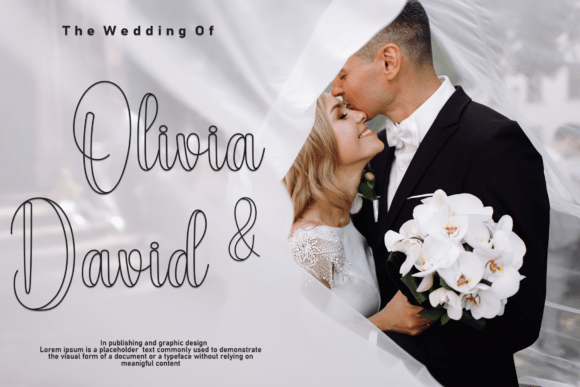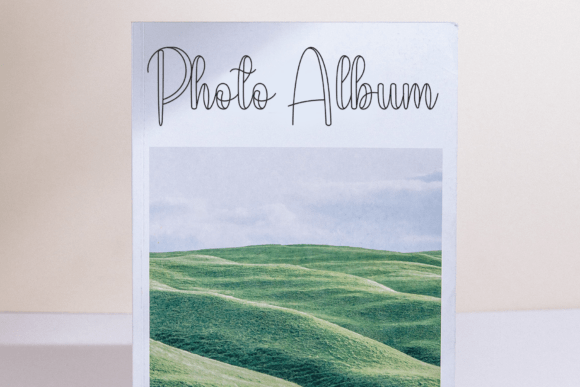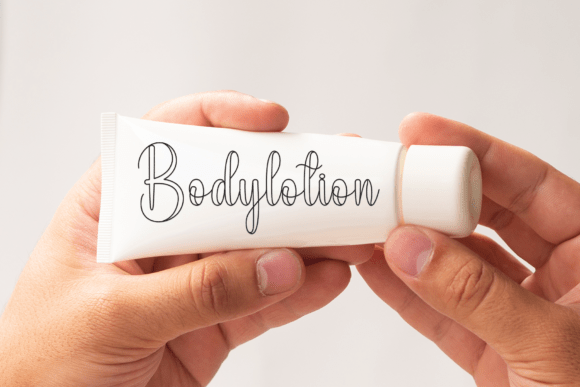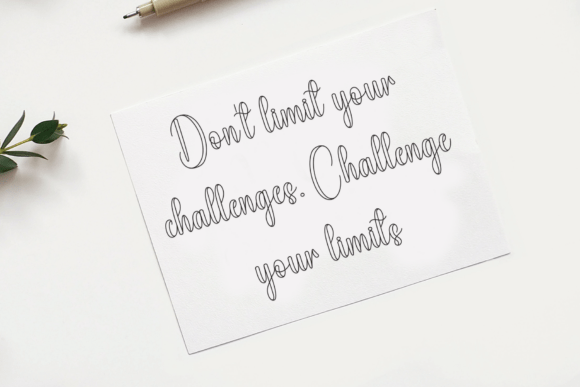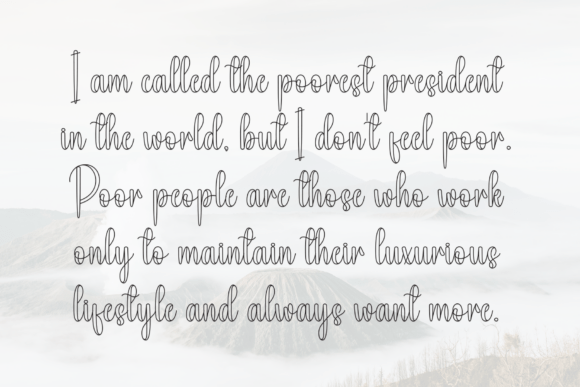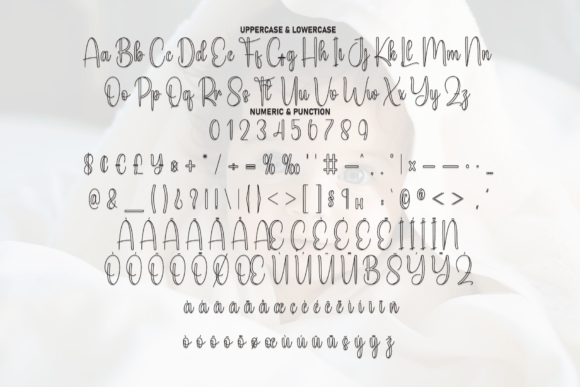
The Perfect Script: Unlocking the Charm of the Babycute Font
Have you ever found yourself staring at a blank page, searching for the perfect font to bring your design to life? That’s exactly what happened to me, and it was then that I discovered the Babycute Font – a stylish script font that has become my go-to choice for adding a touch of elegance to any project.
This beautiful font features fluid strokes, graceful curves, and carefully balanced letterforms, capturing the beauty of hand-drawn calligraphy with a contemporary edge. With its natural flow and refined details, the Babycute Font delivers both visual appeal and versatility, making it an ideal choice for logos, invitations, packaging, and social media graphics.
As a designer, I can attest to the value of having a versatile font like the Babycute Font in your toolkit. Its sophistication and personality make it a valuable asset for any project, and its ease of use means you can focus on bringing your creative vision to life.
Babycute Font Key Features
- Font Family: Babycute Font is a unique, hand-drawn font designed for creating adorable and playful text.
- Unique Characteristics: The font features intricate details, rounded edges, and whimsical flourishes, giving it a distinctive, childlike charm.
Babycute Font Review
I recently had the chance to play around with the Babycute Font, and I must say it’s a sweet addition to any designer’s toolkit. Here’s what I liked about it: ✨
- Charming character set: The font’s playful, cursive script makes it perfect for adding a touch of whimsy to any design.
- Variety of weights: The font comes in multiple weights, allowing designers to achieve a range of styles and moods.
- Legibility: Despite its decorative nature, the font remains relatively easy to read, making it suitable for body text.
- Limited language support: The font may not be optimized for non-Latin scripts, which could limit its use in global designs.
- No seamless connections: The font’s cursive script can make it difficult to connect letters smoothly, which may be a challenge for designers who need precise control.
Overall, I think the Babycute Font is a delightful addition to any designer’s library. While it may have its limitations, its unique charm and versatility make it a great choice for projects that need a touch of personality.
For a more polished look, pair Babycute Font with other cute and playful fonts, or use it in combination with bold and modern fonts to create contrast.
Babycute Font is ideal for designing baby-related products, such as nursery decor, baby clothing, and accessories. It’s also suitable for creating playful and whimsical designs for kids’ parties and events.
Use Babycute Font to add a touch of cuteness and playfulness to your designs, making them perfect for kids and families.
Alternatives to Babycute Font for Designers
The Great Vibes Font is a modern, elegant script font that works well for wedding invitations, baby shower invitations, and other feminine designs. It has a more sophisticated look compared to Babycute Font, making it suitable for high-end or luxury designs. Great Vibes Font is a great choice when you want to convey a sense of elegance and sophistication.
Comparison: Great Vibes Font is more elegant and sophisticated than Babycute Font, with a more refined look and feel. While Babycute Font is playful and cursive, Great Vibes Font is more formal and elegant.